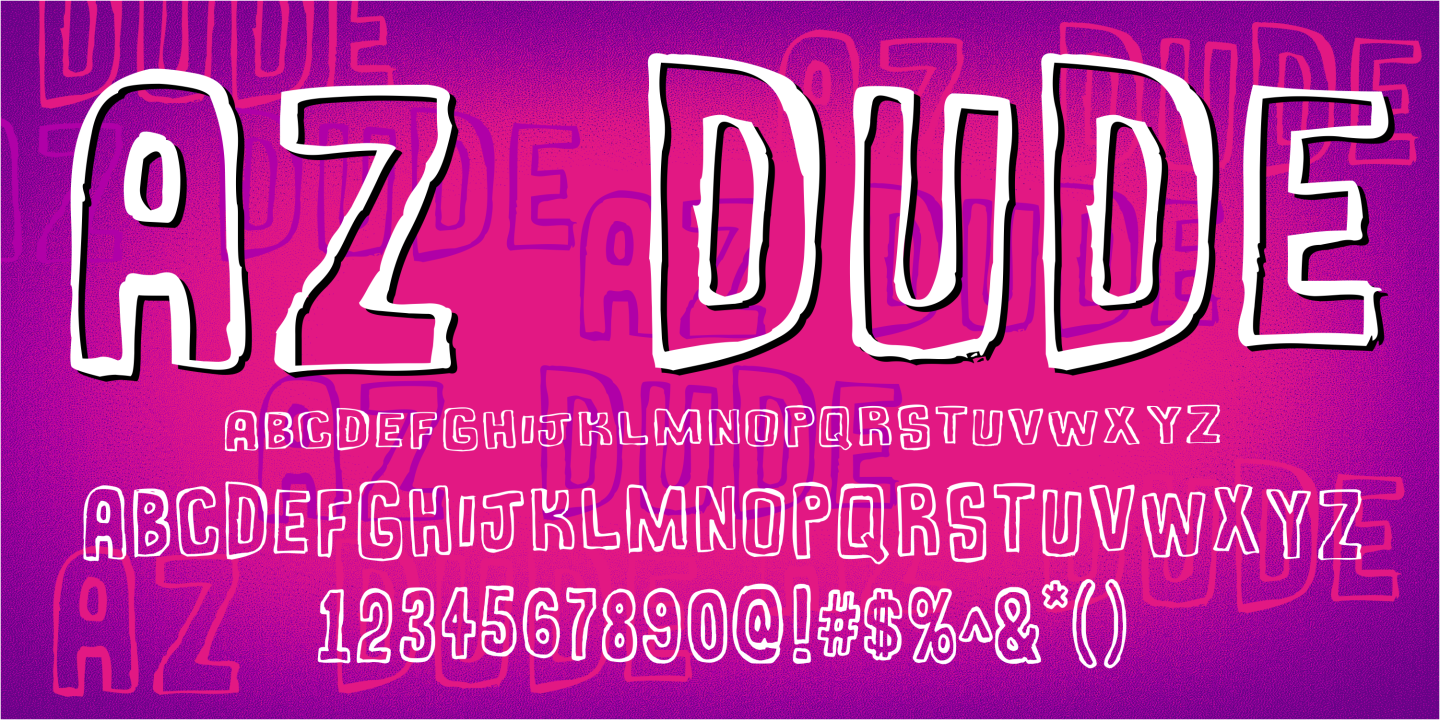
AZ Dude is a hand display and kids font published by Artist of Design.
AZ Dude font was inspired from many miscellaneous hand written slogans on a school text book covers.
This font utilizes an “old look” to the line work which is designed to have a “worn feel” to it.
Ideal for use as headline or sub-head text in you design.